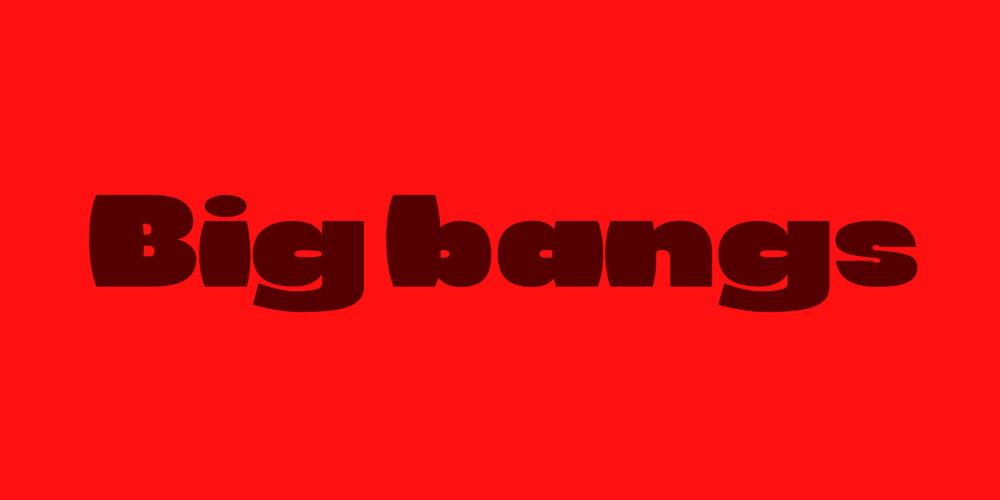
Big Bangs Font Family was designed by Arief Rochman and published by 4RM Font. Big Bangs contains 1 styles and family package options. Big bangs font is made with letter anatomy that looks very unique with a characteristic bulging shape and very large weight size, inspired by explosions, this font looks big and dangerous as well as unique, suitable for use in graphic designs such as stickers, posters, covers, labels, and others.